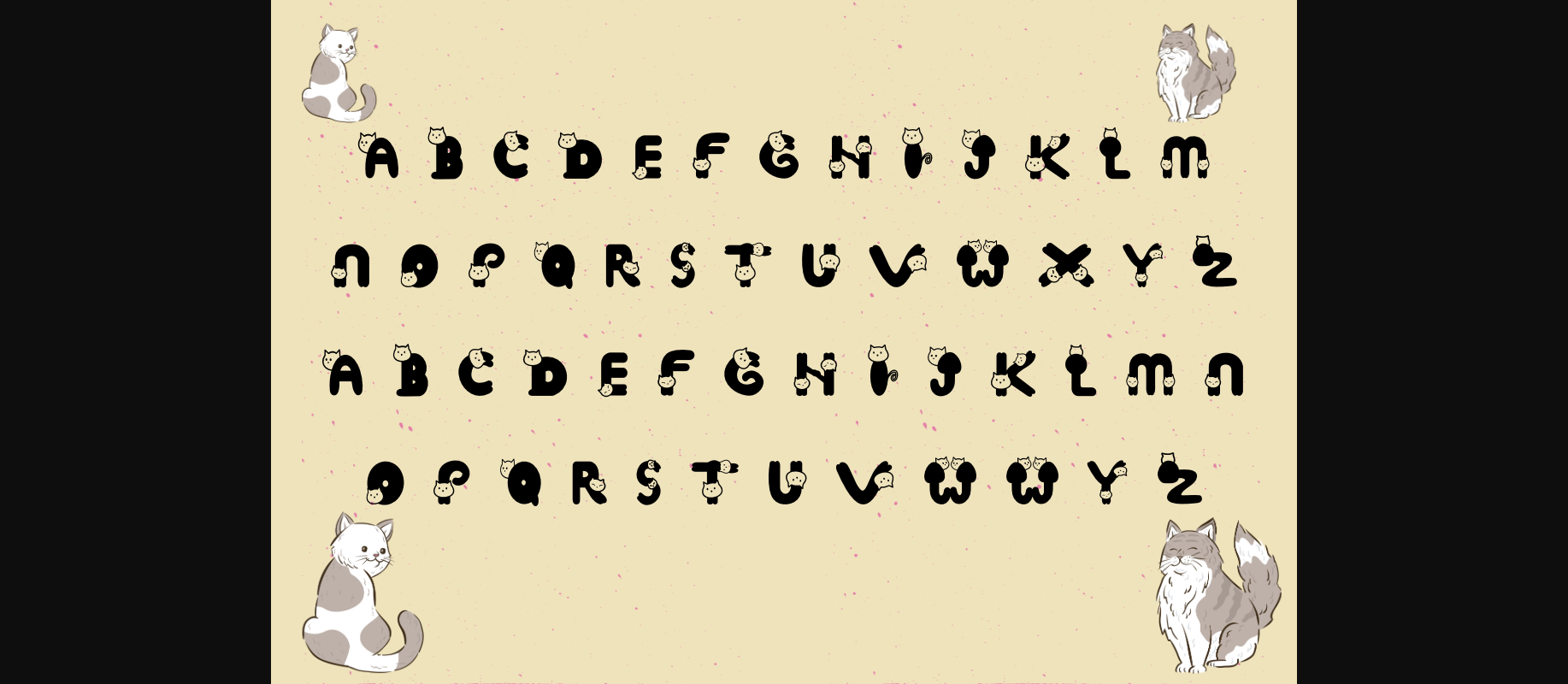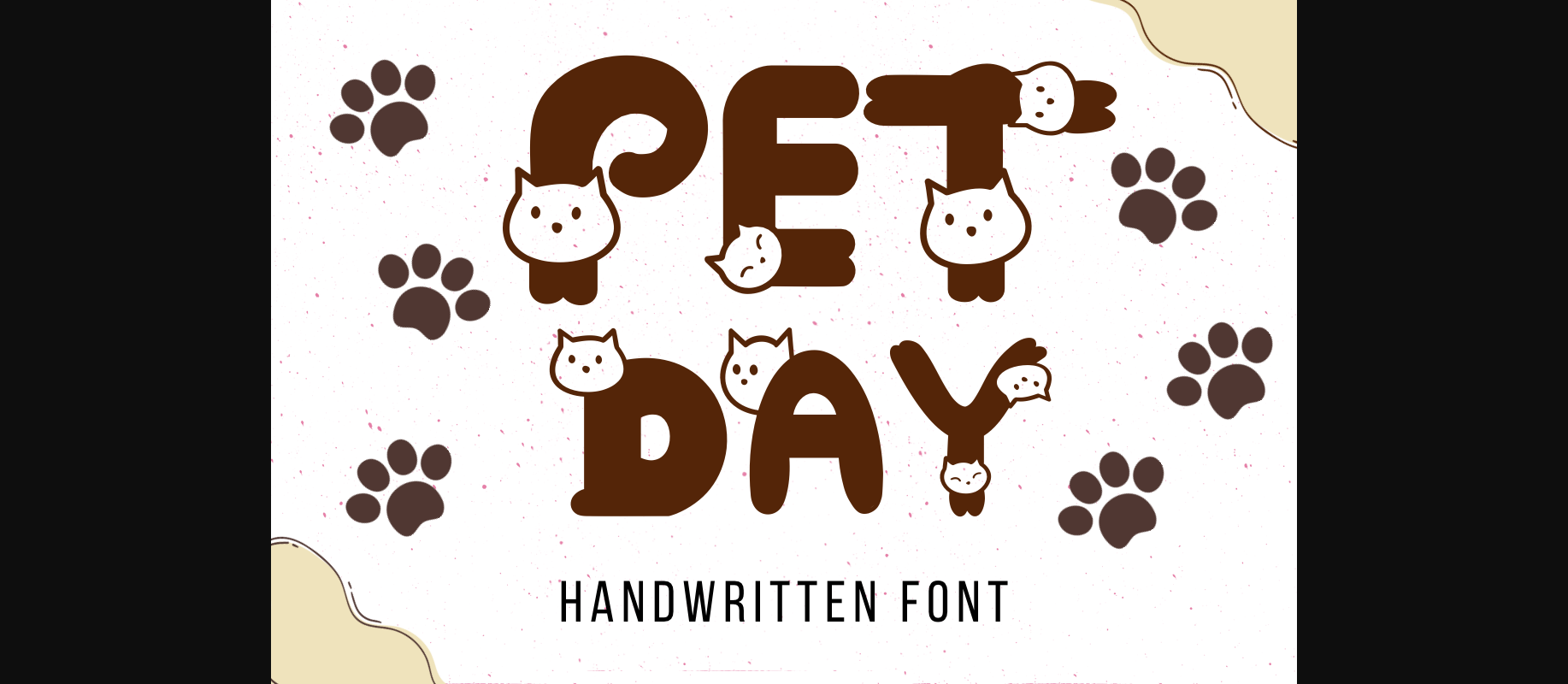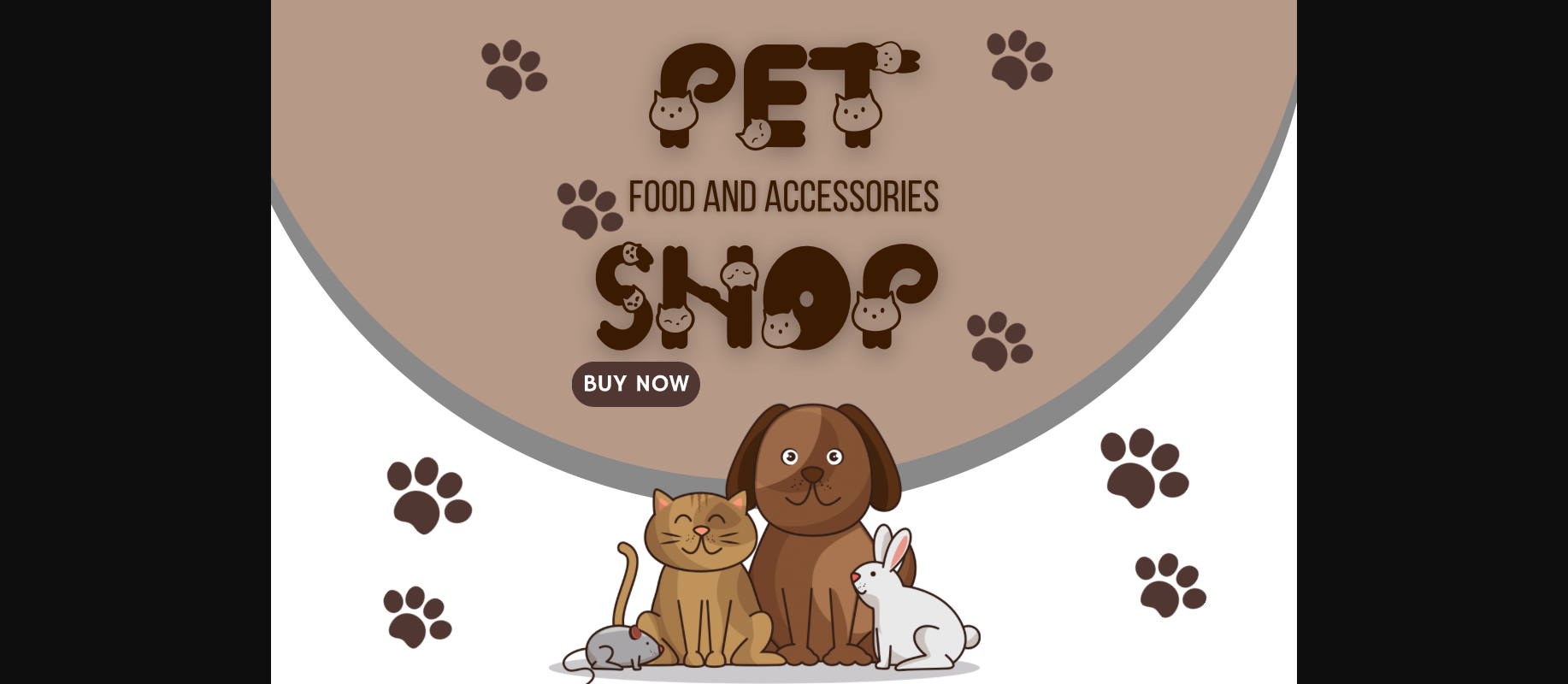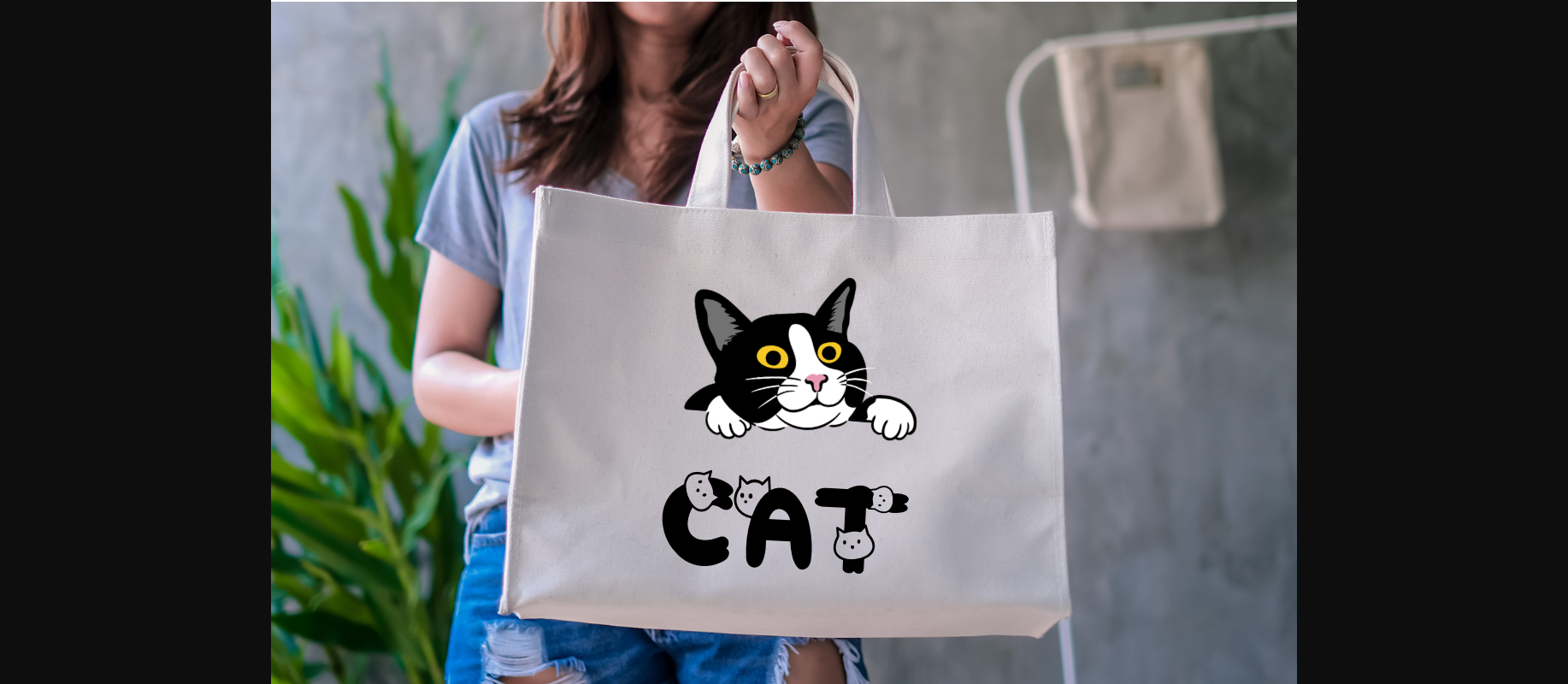
About Pet Day Font
Pet Day is a delightful celebration of our furry friends. Its whimsical characters evoke playful pet antics, with tails wagging and ears perked up. Perfect for pet-themed designs, invitations, and greeting cards, Pet Day adds a charming touch to any project, capturing the joy of pet companionship.